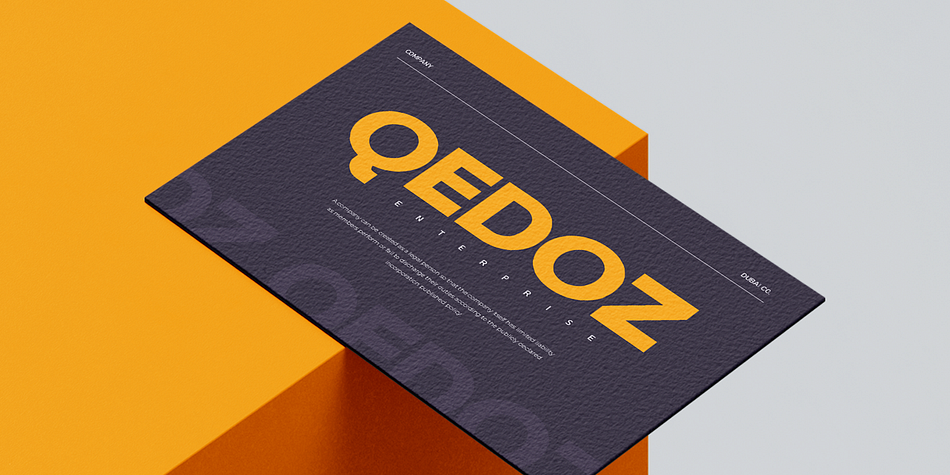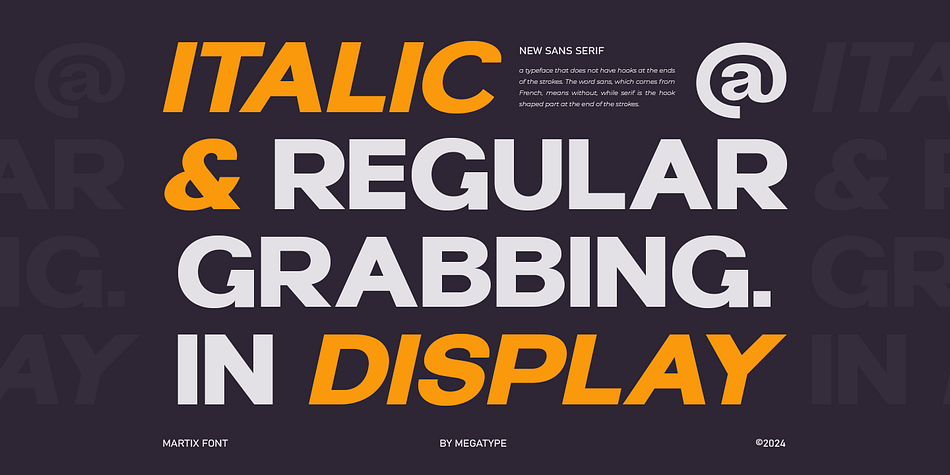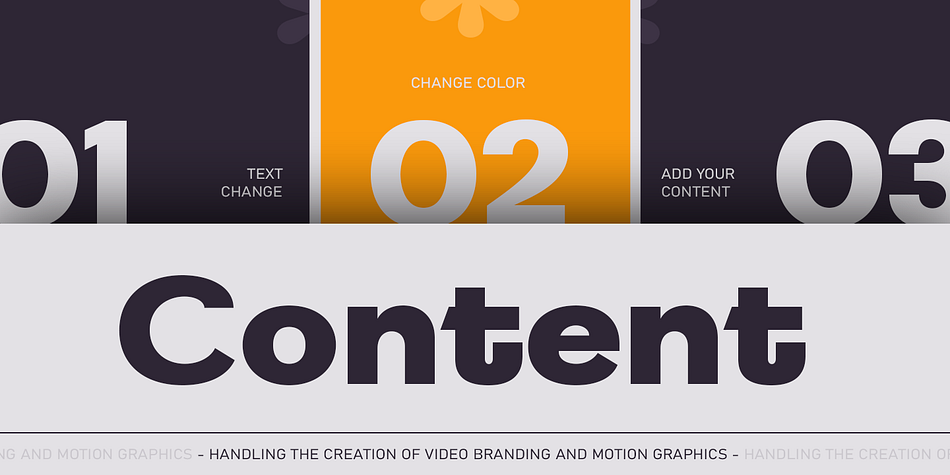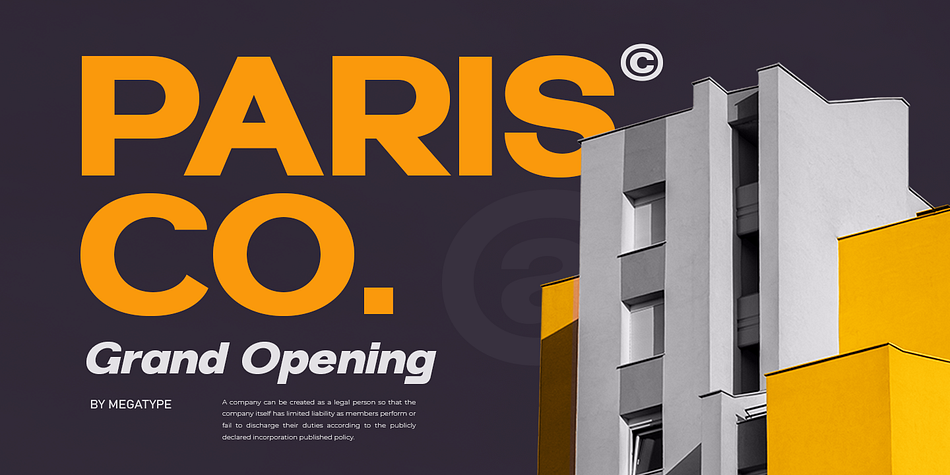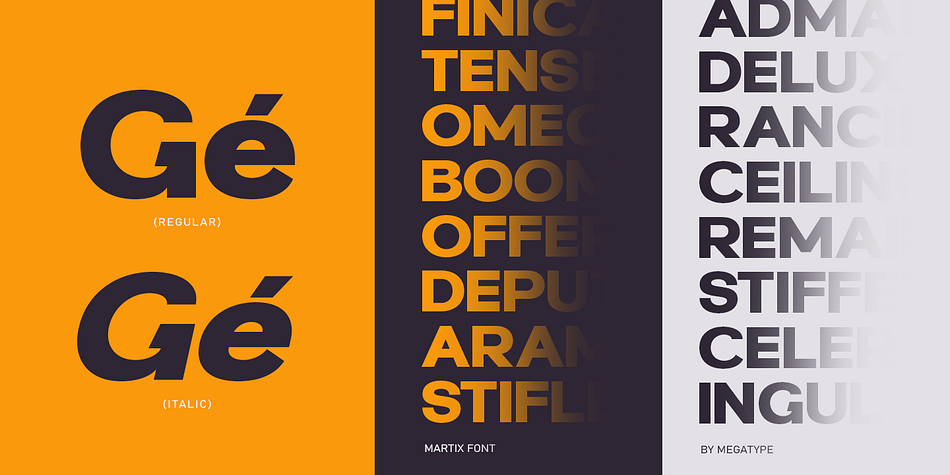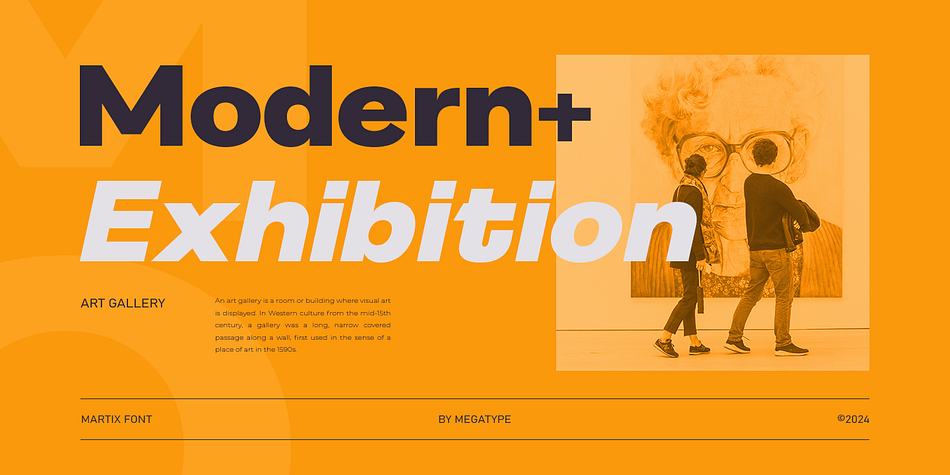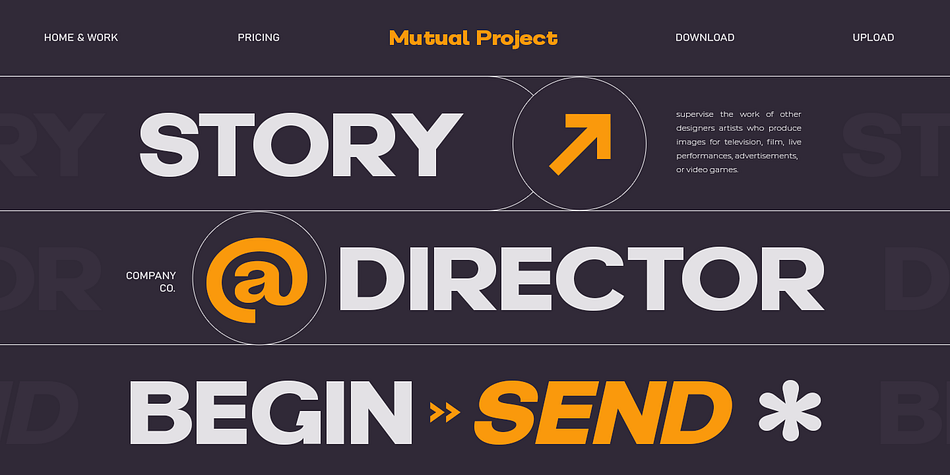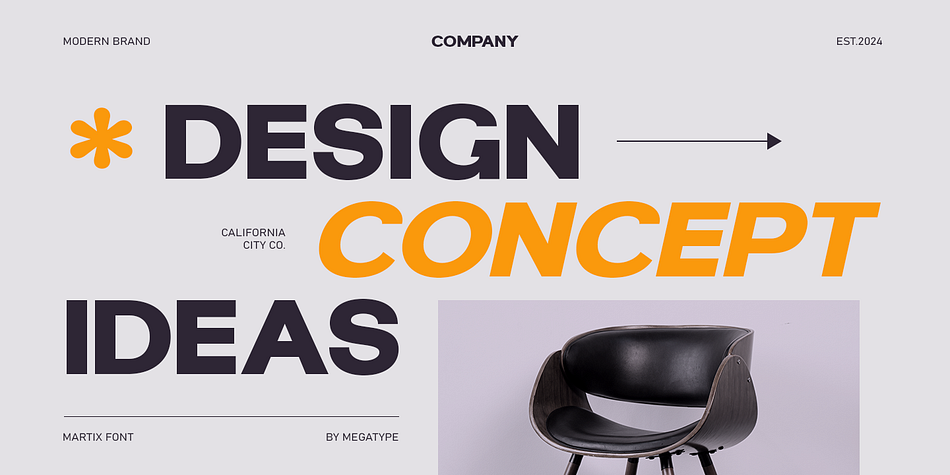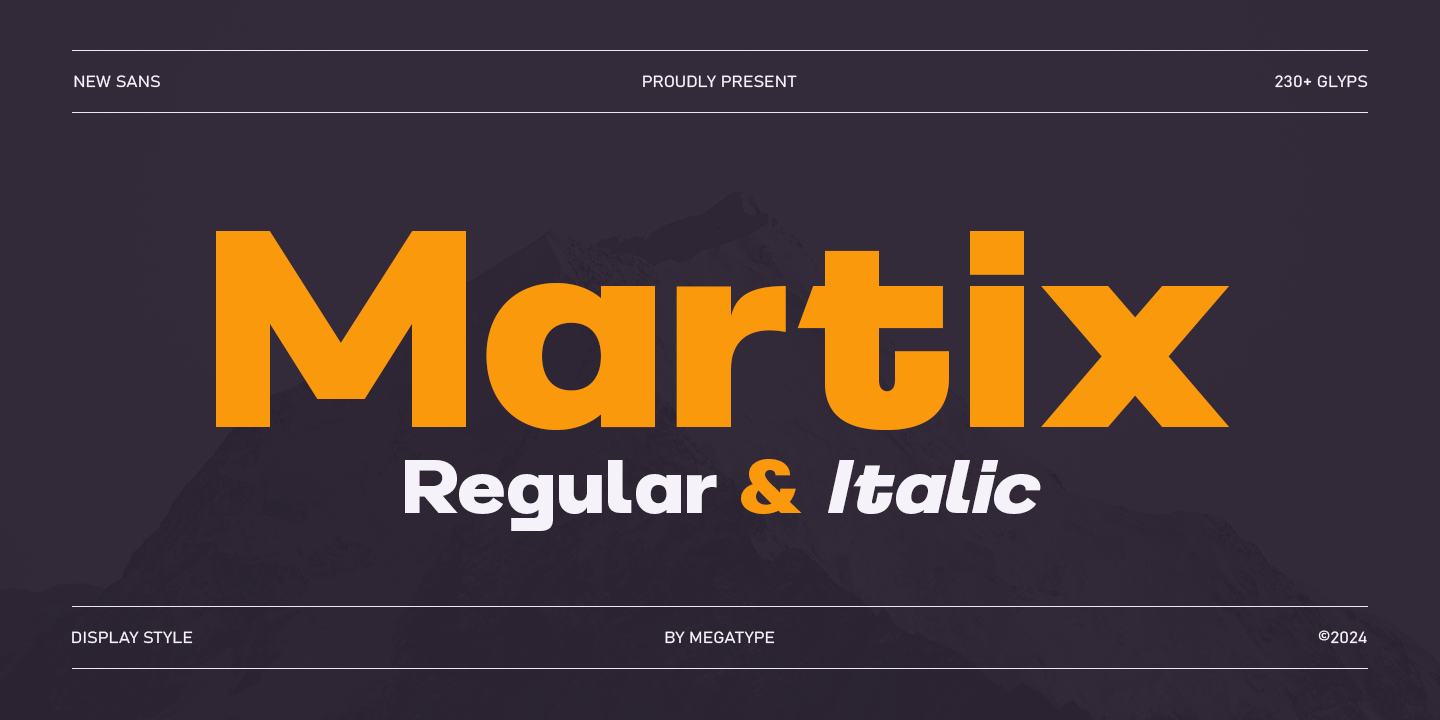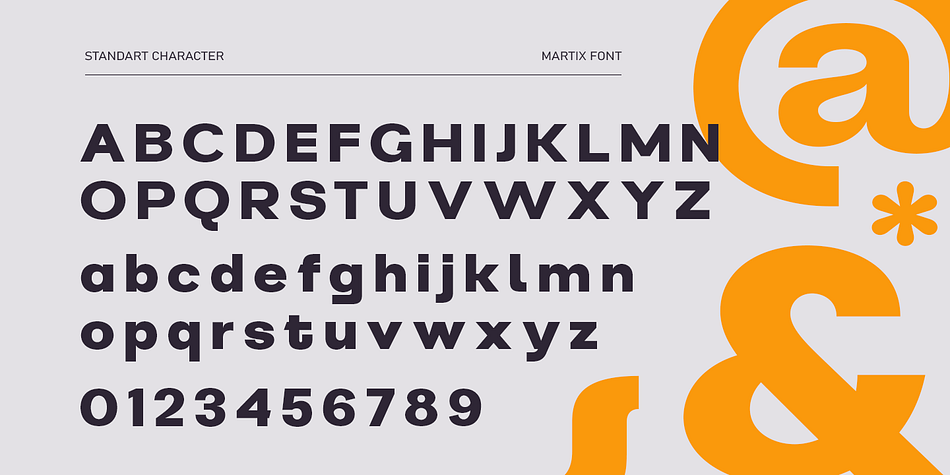
Martix
Martix is a sans serif font family. This typeface has two styles and was published by Mega Type.
Martix is designed in a unique modern style with geometric details and deep industrial design principles. Martix comes in regular and italic styles to provide greater flexibility and allowing it to adapt to various graphic design contexts.
Martix is the perfect choice for any creative, lifestyle design endeavor such as logos, advertising, watermarks on photography, stationery, branding projects, displays and magazines, corporate branding, product design, labels, business projects and many projects others with an elegant and modern touch.